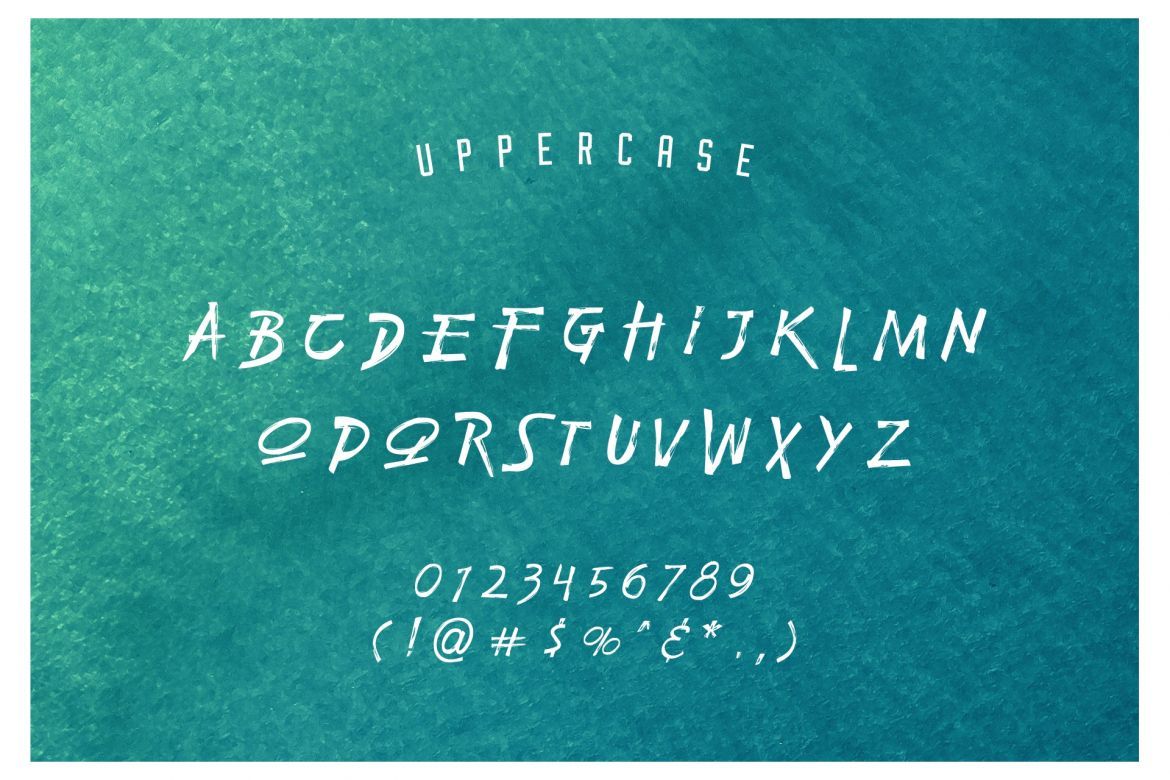
Bodhi Brush Font
Bodhi is an energetic brush font that will add excitement to any creative project. Get inspired by its bold persona!
• lowercase
• uppercase